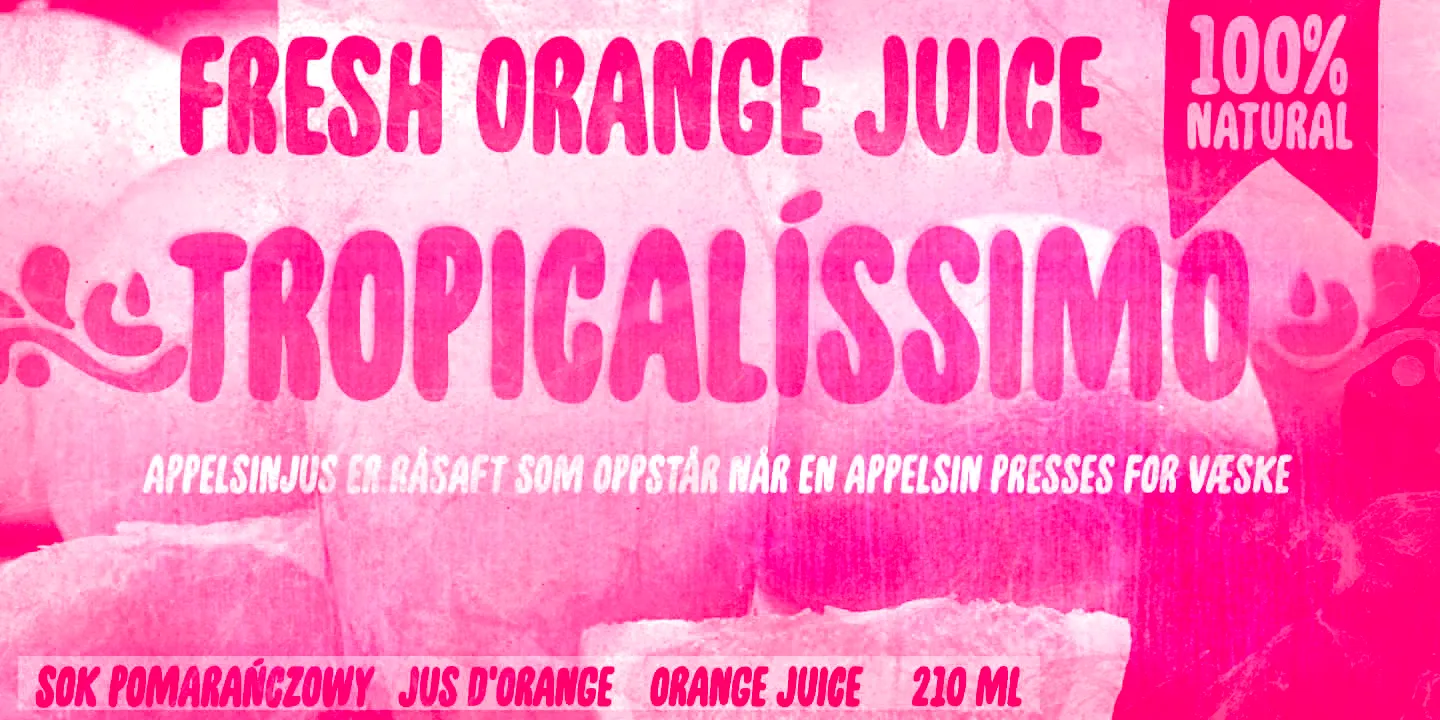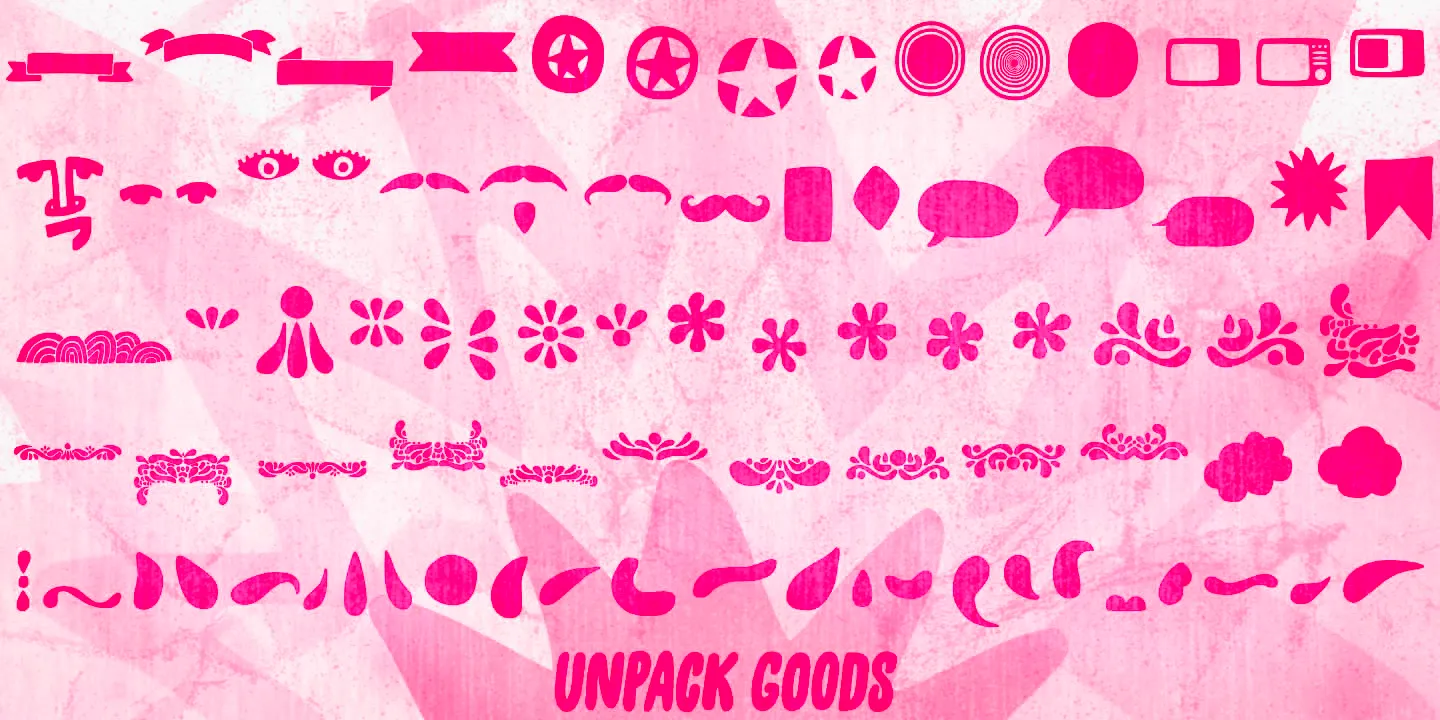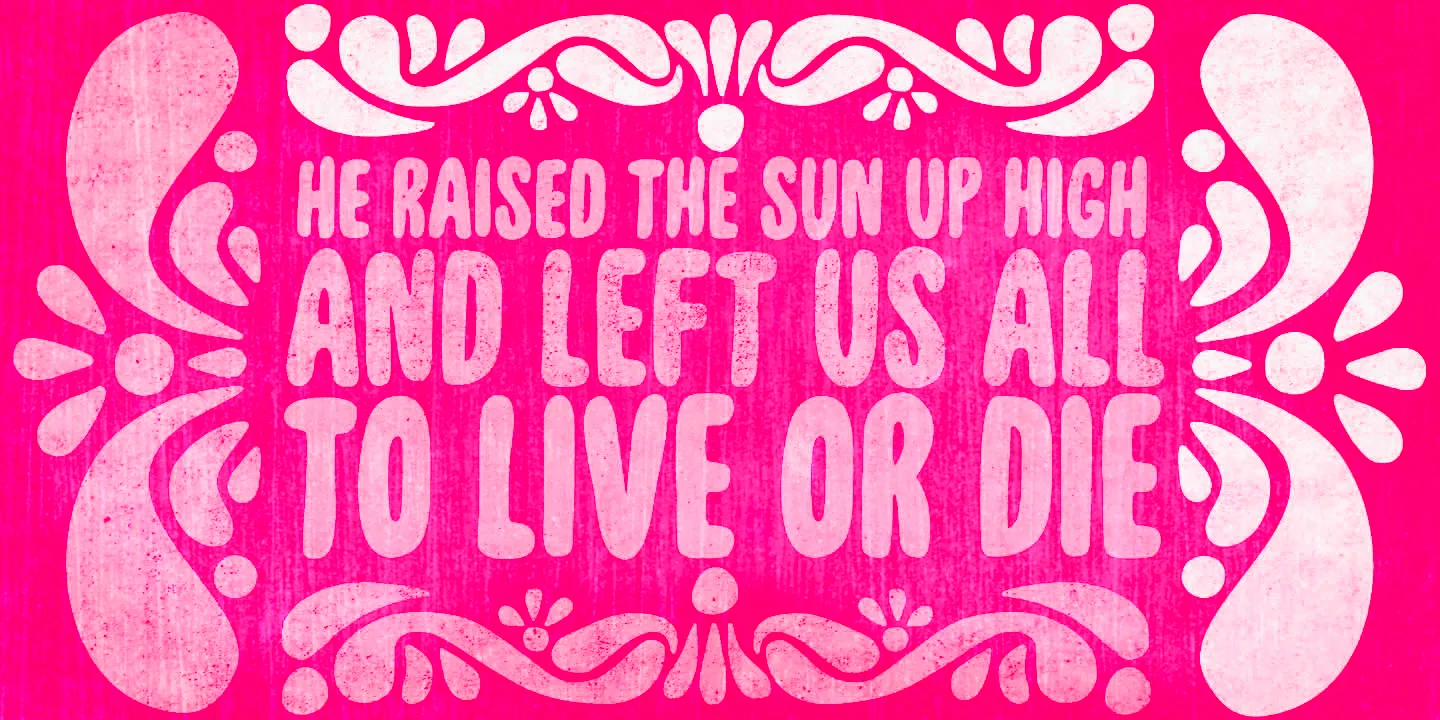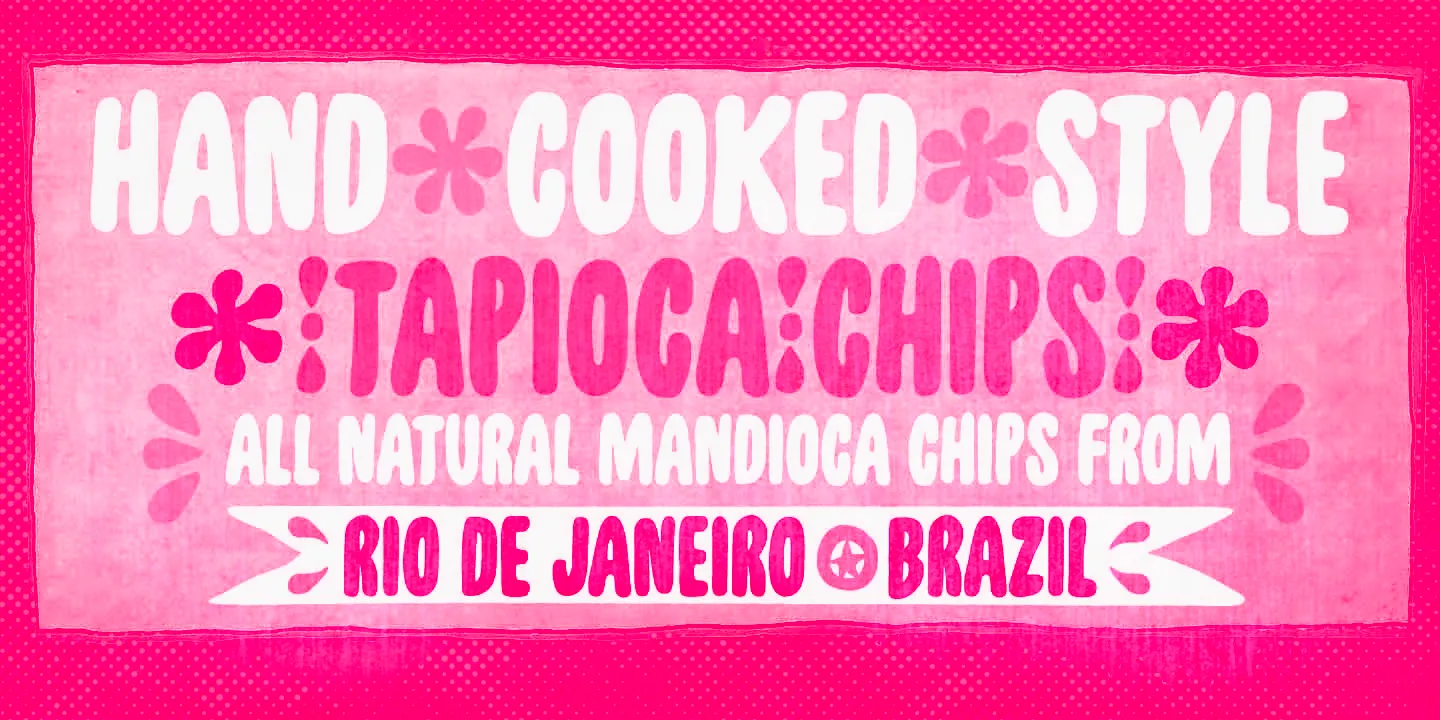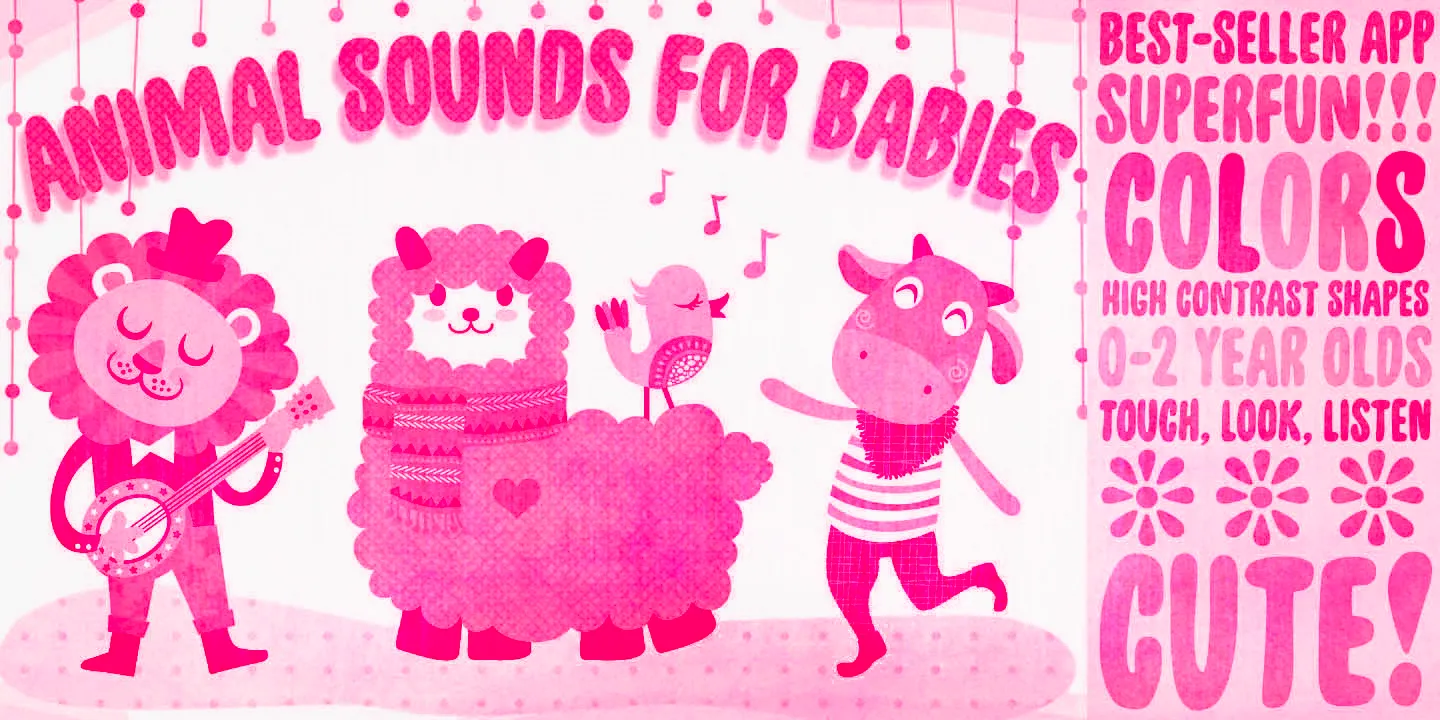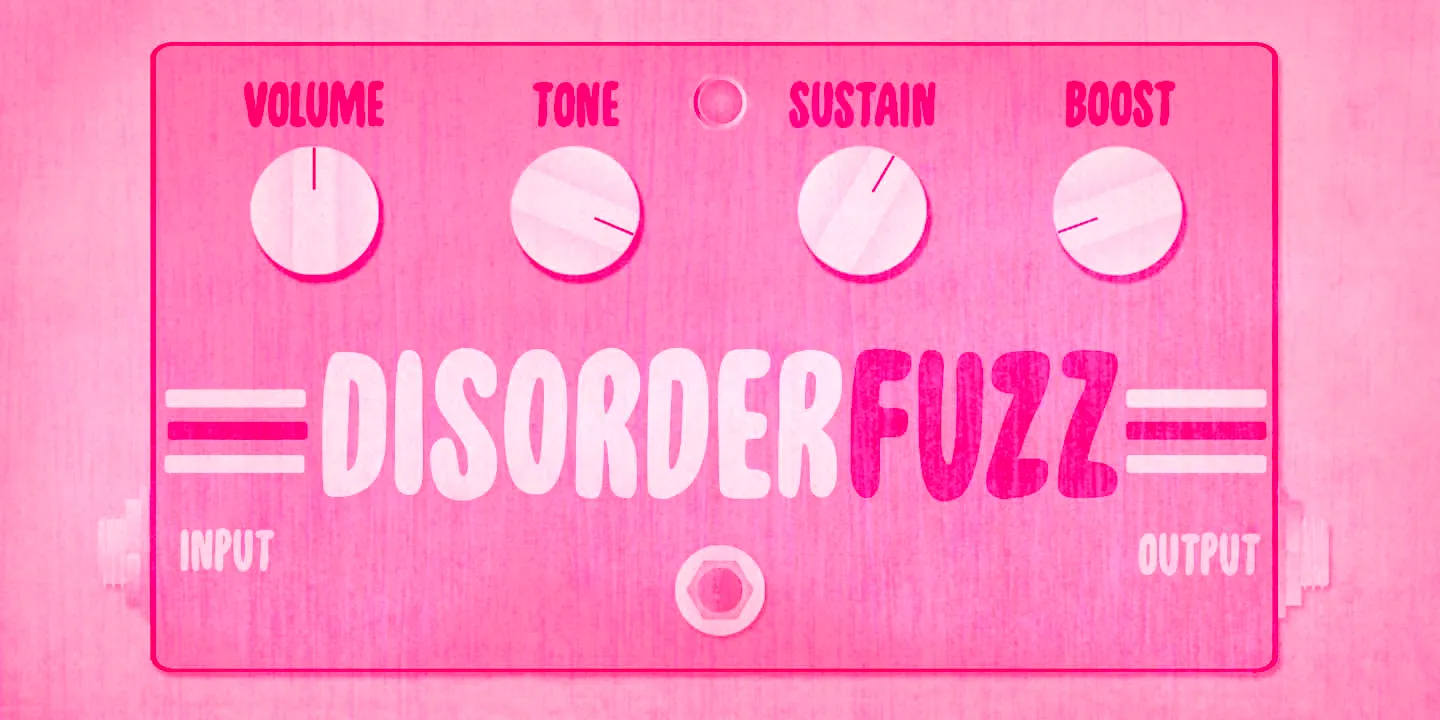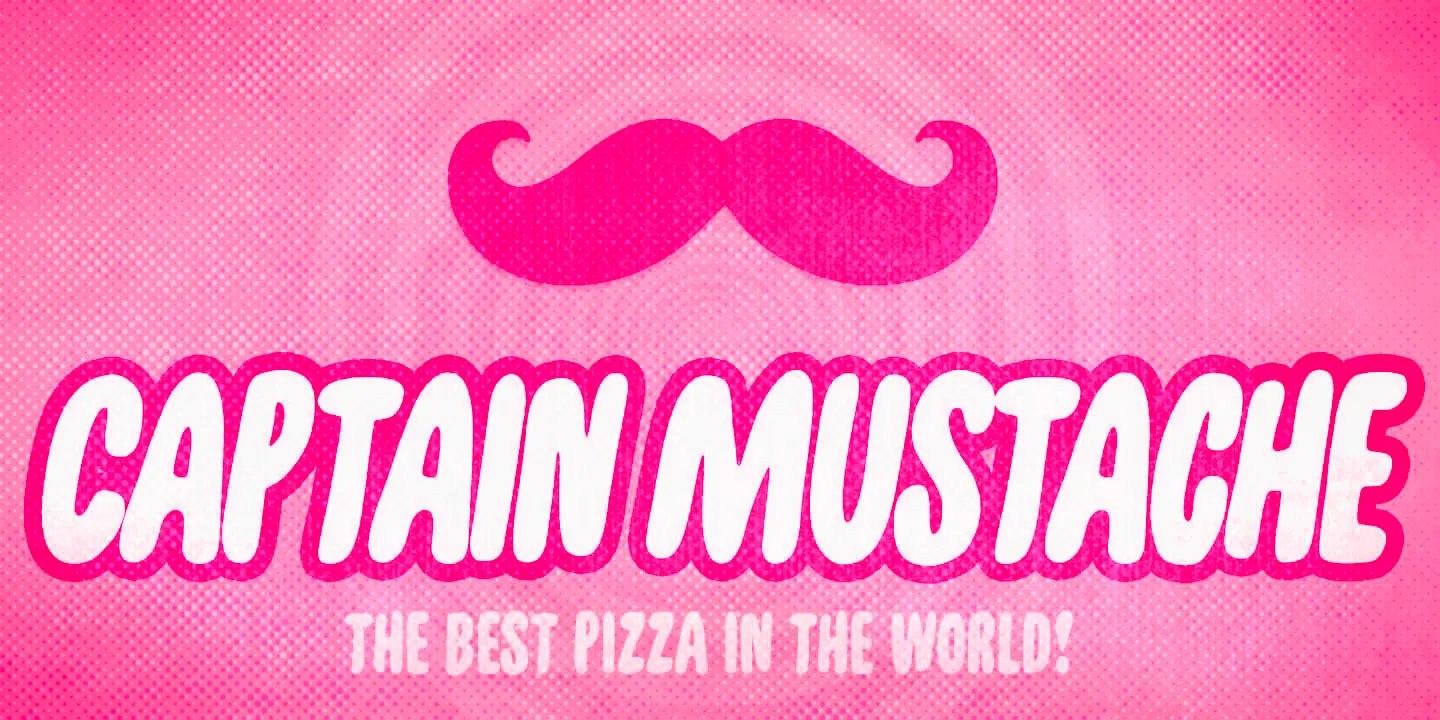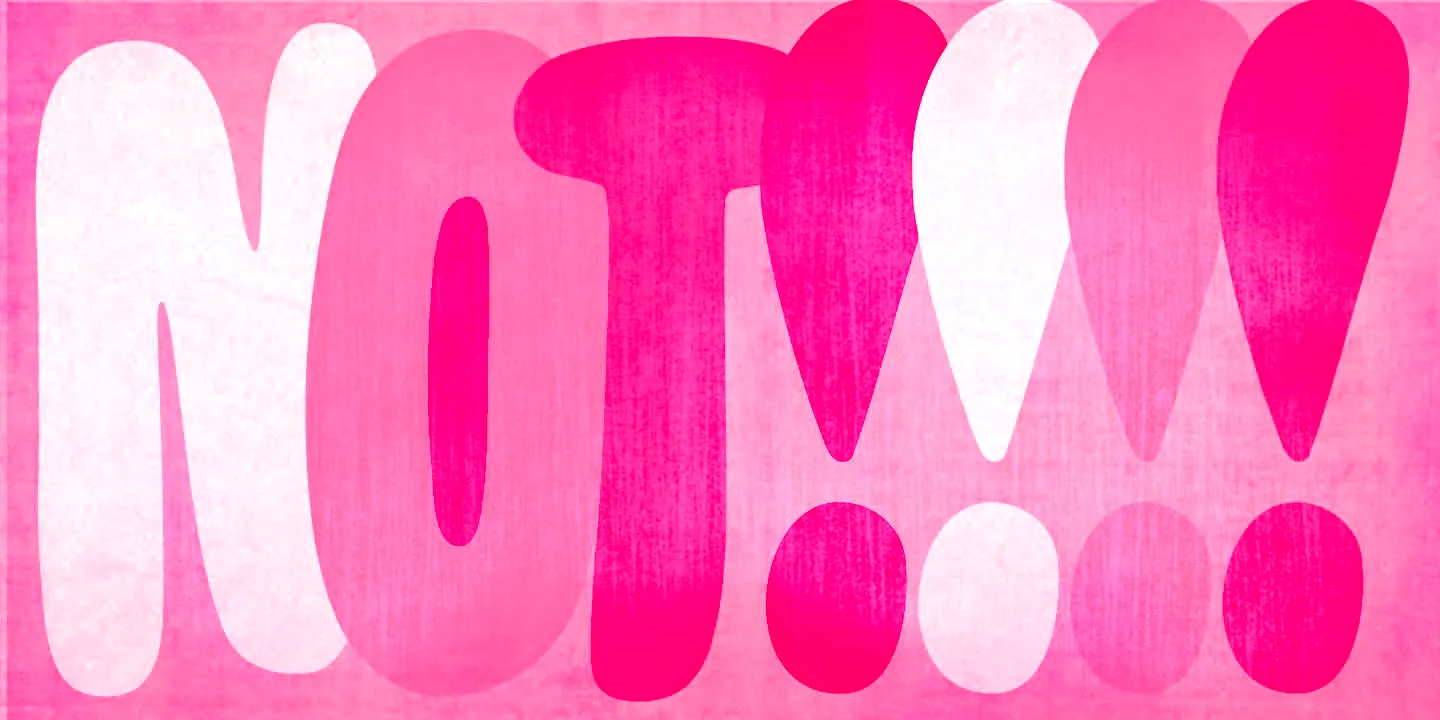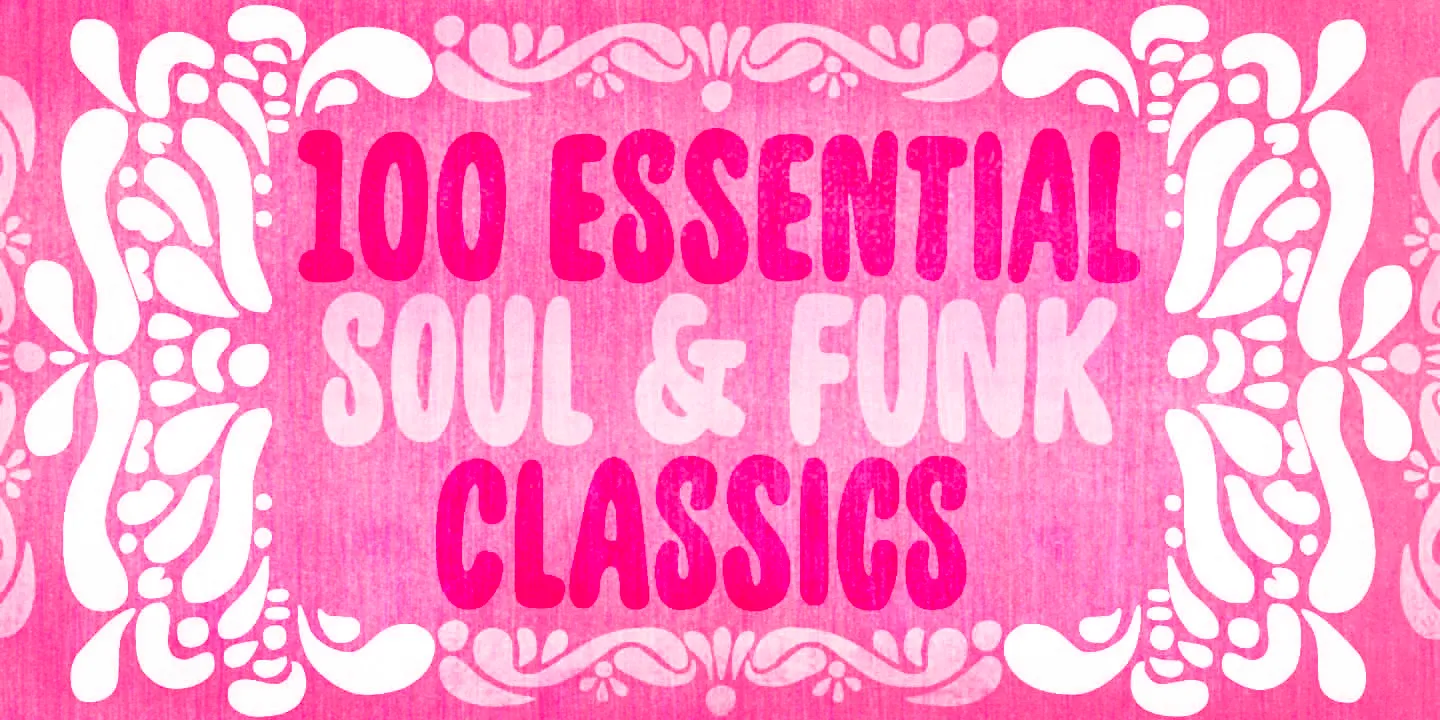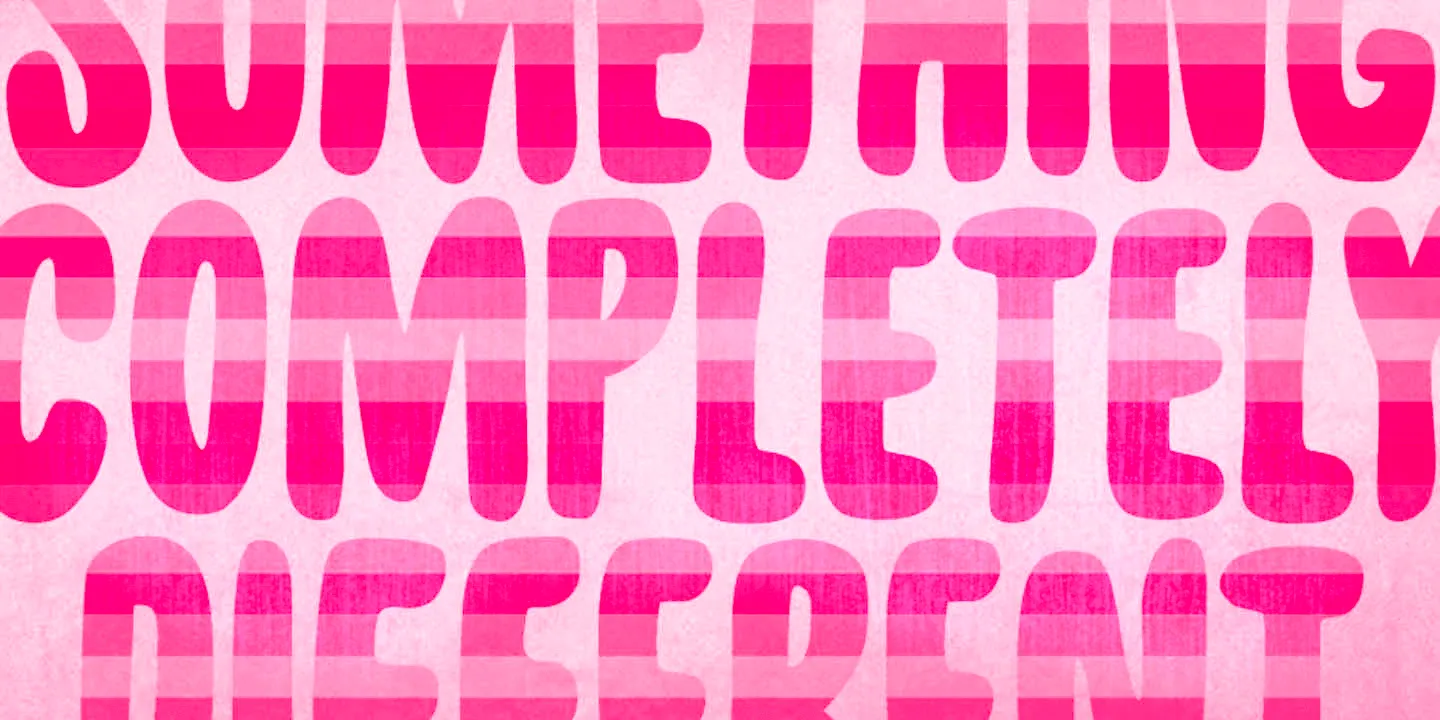
Unpack Font Family
Unpack
Unpack is an invitingly soft condensed sans serif. It is available in two cuts, upright and slanted, both all-caps, with 2 options for each letter for an organically uneven look. The family also has a picture font, loaded with some handy extras like banners, stars, and ornaments. This versatile family suits a wide range of projects. Food packaging, kids books, theatrical posters, album covers, and more! Don’t believe it? You don’t even need to unpack it to try!